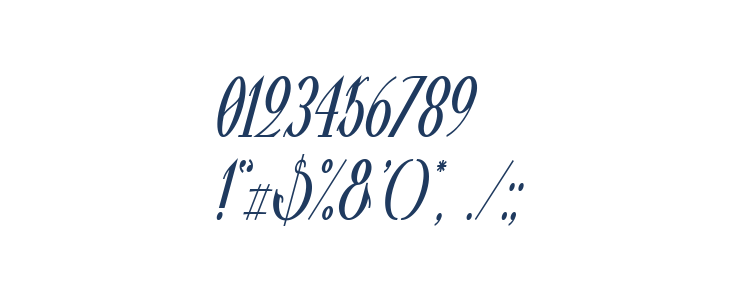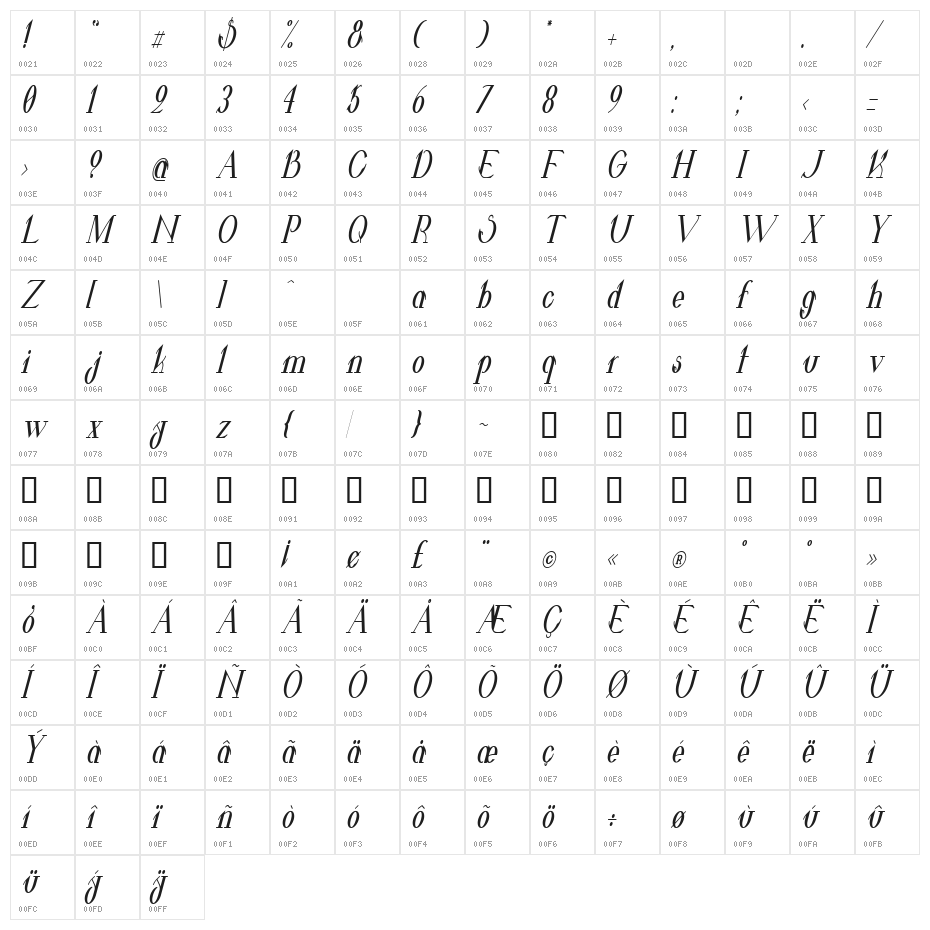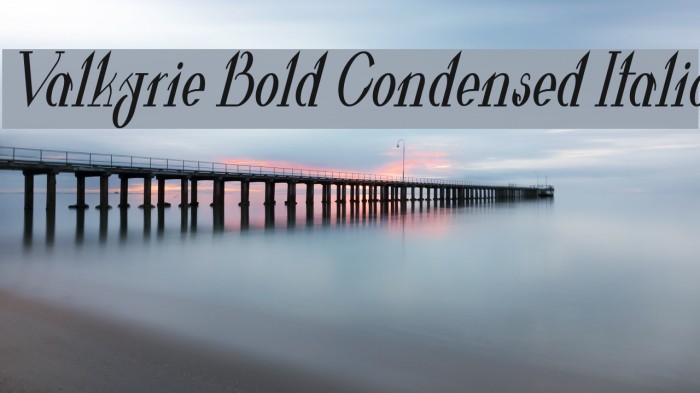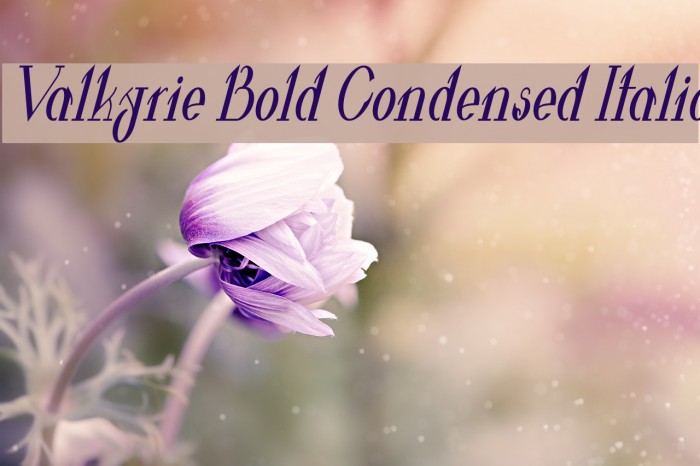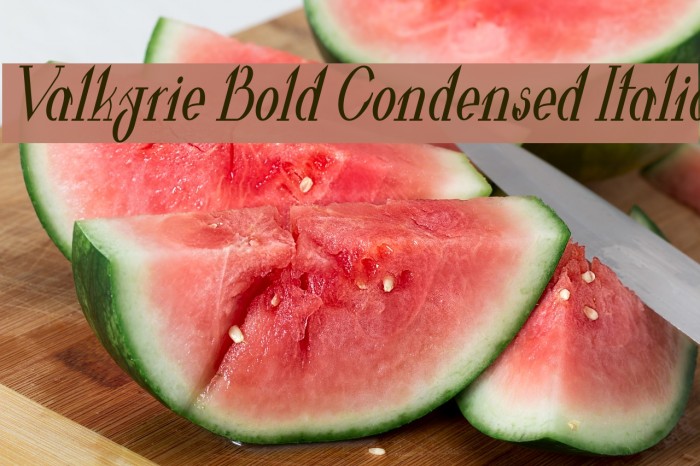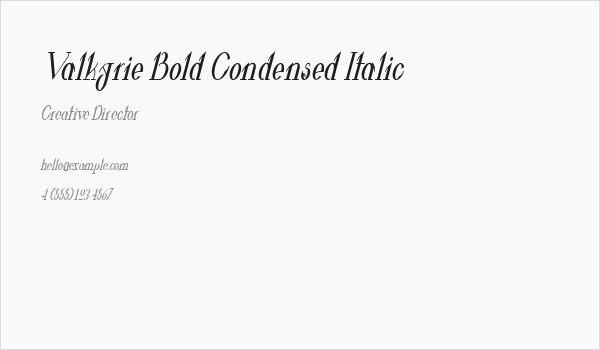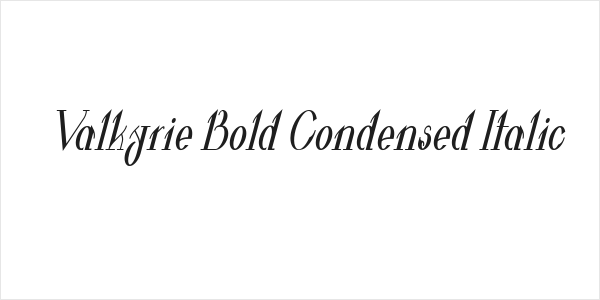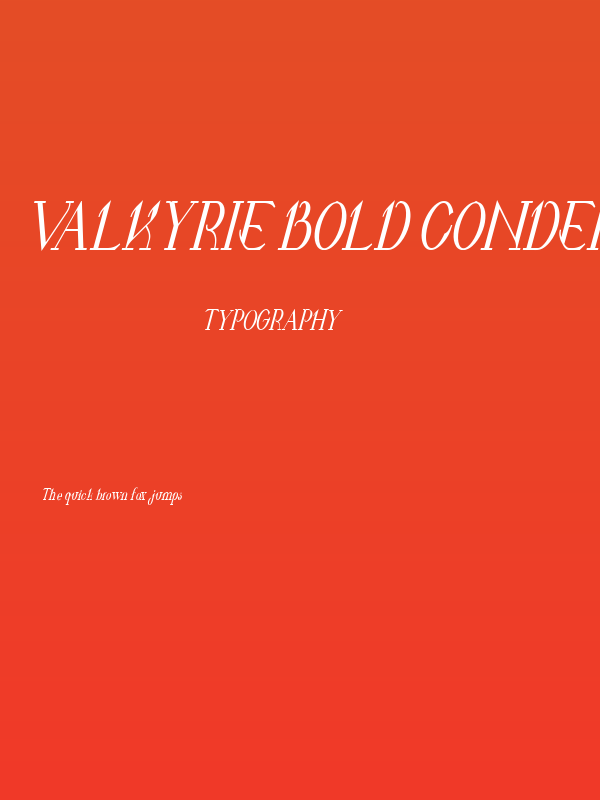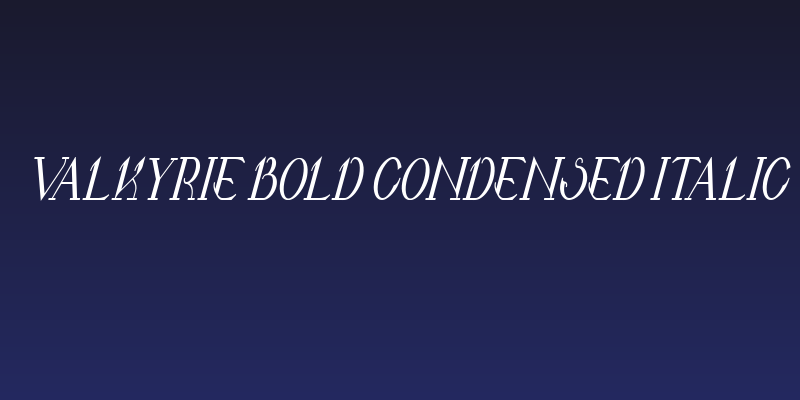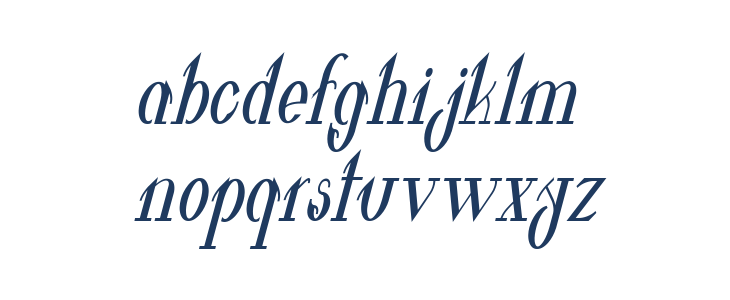
Valkyrie Bold Condensed Italic Font
Valkyrie Bold Condensed Italic Description
This font exhibits a bold and condensed style with a pronounced italic slant, creating a dynamic and energetic appearance. The characters are tightly spaced, enhancing the condensed effect, while the bold weight ensures strong visibility and impact. The italic angle adds a sense of motion and elegance, making it suitable for attention-grabbing designs. The high contrast between thick and thin strokes gives it a sophisticated and modern look, ideal for making statements in headlines or titles. The uppercase and lowercase letters maintain consistency in style, with distinctive serifs that add a touch of classic flair. Numbers and special characters are designed to match the overall aesthetic, ensuring uniformity across all text elements.
| Proposed Projects | Ideal for headlines, posters, branding, and editorial design where a strong, stylish impact is desired. |